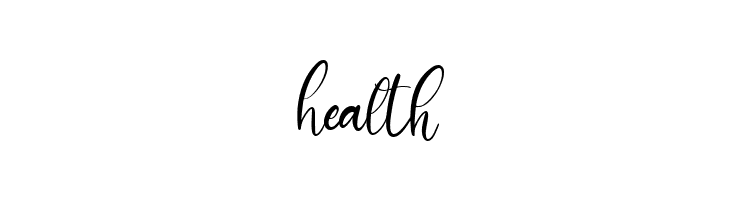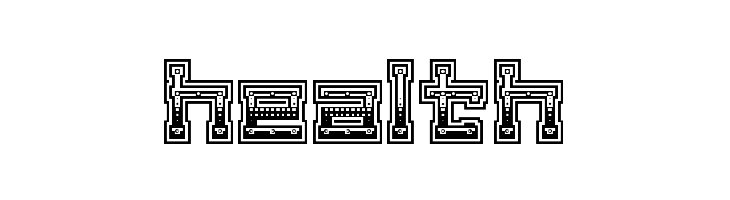
A whimsical and flowing handwritten font with elegant, fluid strokes.
A bold, playful font with thick, rounded strokes and dynamic curves.
A bold, modern font with geometric structure and rounded edges.
An elegant and sophisticated cursive script font with flowing curves and intricate loops.
A dynamic handwritten font with expressive and fluid strokes.
A modern, rounded sans-serif font with a clean and approachable design.
A modern, rounded sans-serif font with excellent readability and balanced proportions.
A bold, playful handwritten font with rounded strokes and a casual style.
A decorative font with gothic-inspired serifs and intricate detailing.